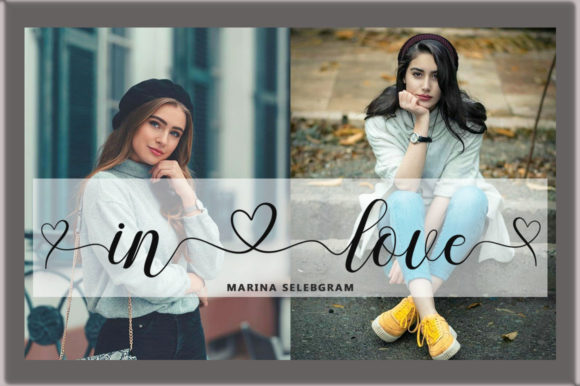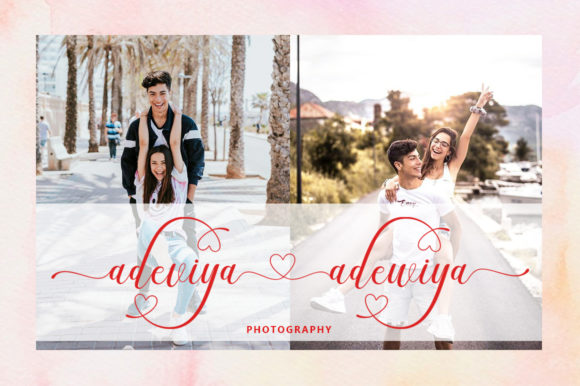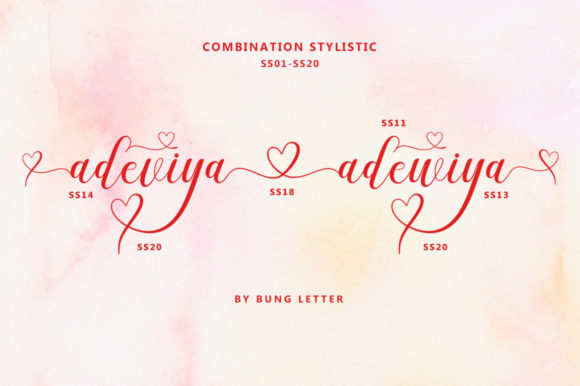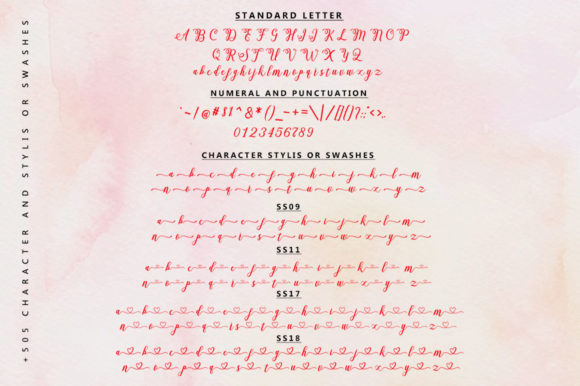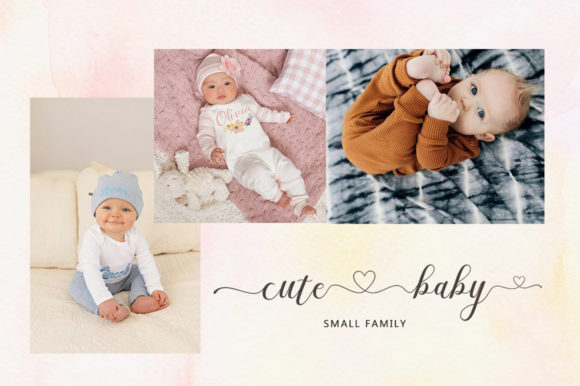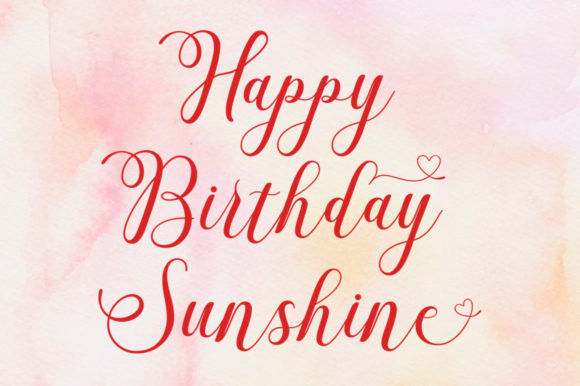
The Perfect Script for a Love Letter: Unveiling the Adeviya Adewiya Font
Have you ever been stuck on a project, desperately searching for the perfect font to convey the emotions you want to express? We’ve all been there – staring at a blank page, trying to decide on the perfect script to make our message truly special. For me, it’s moments like these that remind me of the beauty of handwritten fonts, and one that stands out in particular is the Adeviya Adewiya Font.
This enchanting handwritten font is the perfect addition to any design project, whether you’re creating a romantic greeting card, crafting a beautiful headline, or simply looking to add a touch of elegance to your next layout. With its versatility and PUA encoding, you’ll have access to a wide range of beautiful glyphs and swashes, making it a valuable tool for designers looking to add a personal touch to their work.
- Font Family: Adeviya Adewiya is a unique, hand-drawn font designed for creative and artistic purposes.
- Character Set: Includes a wide range of characters, including Latin, Cyrillic, and Greek alphabets, as well as punctuation and symbols.
- Unique Characteristics: Features a distinctive, handwritten style with varied line widths and expressive letterforms, making it perfect for creative projects.
Adeviya Adewiya Font Review
Overall, I’m quite impressed with the Adeviya Adewiya Font. It has a unique, hand-drawn feel that adds a touch of personality to any design. ✨ The font’s organic, flowing lines give it a natural, earthy feel that’s perfect for projects that need a more whimsical tone.
- ✨ Unique, hand-drawn feel that sets it apart from more generic fonts
- ✨ Excellent for projects that require a natural, earthy feel
- ✨ Wide range of weights and styles available, making it highly customizable
However, there are a few limitations to consider. ⚠️ The font can be a bit too ornate for some projects, making it difficult to read in certain contexts. Additionally, some of the weights and styles can be a bit inconsistent, which may require some tweaking to get the look just right.
- ⚠️ Can be too ornate for some projects, making it difficult to read
- ⚠️ Inconsistent weights and styles may require tweaking
Overall, I’d highly recommend the Adeviya Adewiya Font for projects that need a unique, natural feel. While it may not be the best choice for every project, it’s definitely worth considering for the right type of design.
Adeviya Adewiya Font: A Practical Application Guide
Use Adeviya Adewiya for creative projects, such as posters, flyers, and social media graphics. It’s also suitable for wedding invitations, event promotions, and branding materials. Experiment with different font sizes and colors to create visually appealing designs.
Alternatives to Adeviya Adewiya Font
The Great Vibes Font is a modern calligraphy font that is perfect for creating elegant and sophisticated designs. It is ideal for use in wedding invitations, quotes, and other creative projects where a touch of elegance is required.
Compared to Adeviya Adewiya Font, Great Vibes Font has a more refined and polished feel, with a focus on elegance and sophistication. While Adeviya Adewiya Font has a more playful and whimsical feel, Great Vibes Font is better suited for more formal and professional designs.
The Pacifico Font is a beautiful, handwritten font that is perfect for creating a relaxed and casual atmosphere. It is ideal for use in branding, advertising, and other creative projects where a friendly and approachable tone is required.
Compared to Adeviya Adewiya Font, Pacifico Font has a more laid-back and casual feel, with a focus on friendliness and approachability. While Adeviya Adewiya Font has a more playful and whimsical feel, Pacifico Font is better suited for designs that require a more relaxed and casual tone.